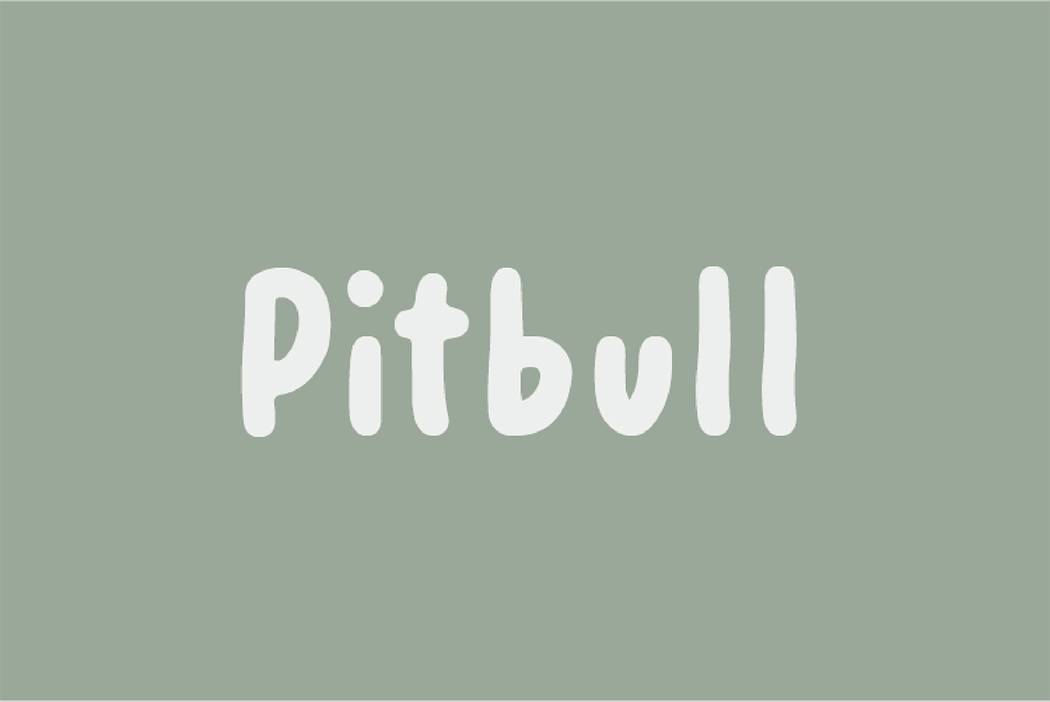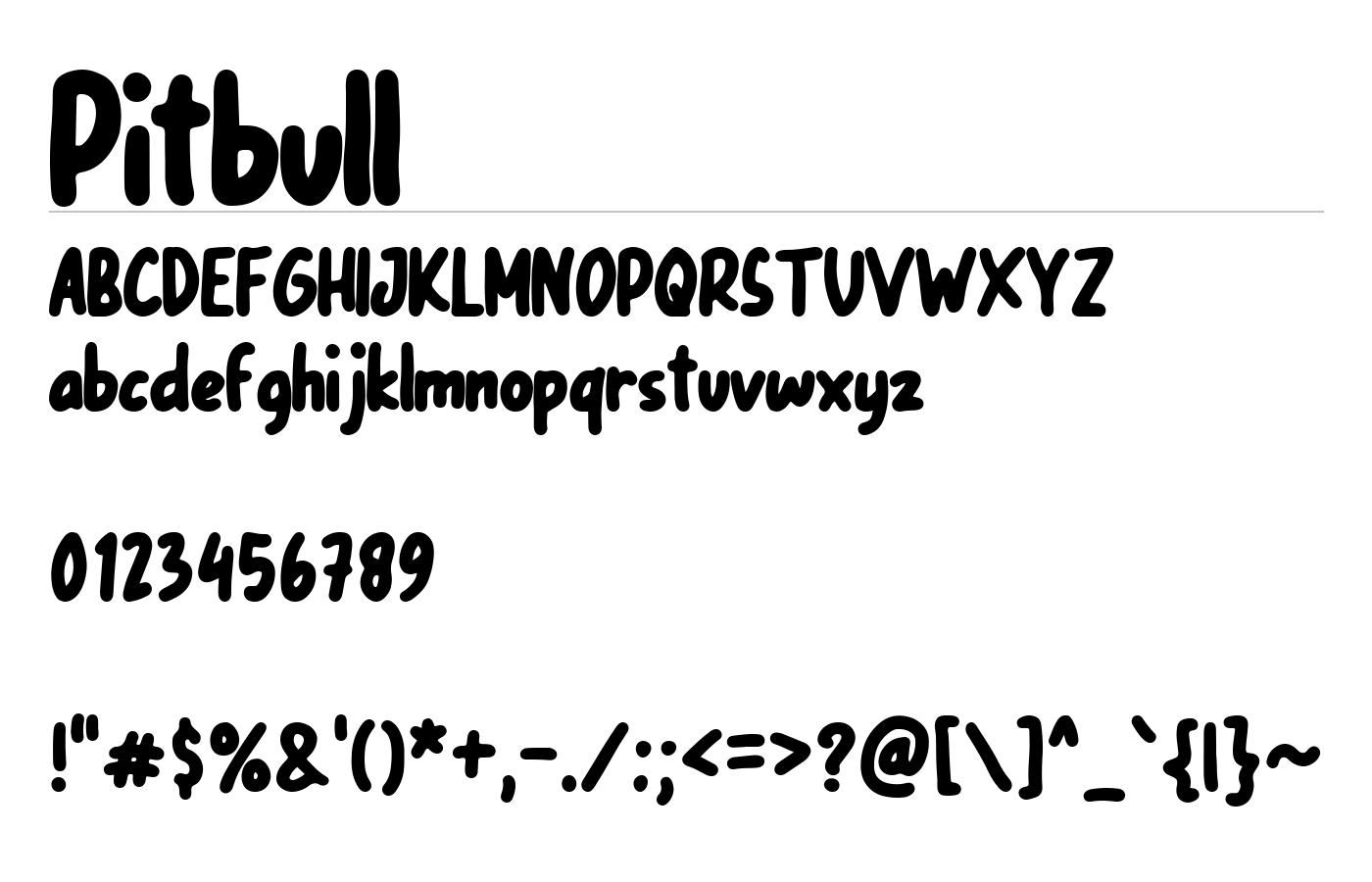
Pitbull Font is a bold, playful sans serif typeface with a hand-drawn feel, featuring rounded, chunky letterforms and moderate contrast that create a friendly, approachable vibe. Its casual style and clear readability make it perfect for branding, children's materials, posters, and informal communications where a fun and energetic personality is desired. This font works well for eye-catching headlines and logos that aim to convey warmth and creativity.
Pitbull Font
About Pitbull Font
| Font family | Pitbull Font |
| Designer | Lady Hanna |